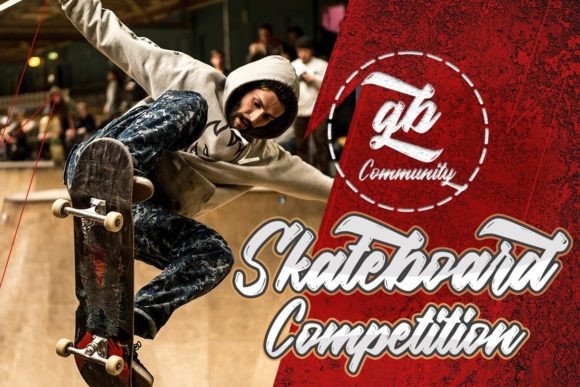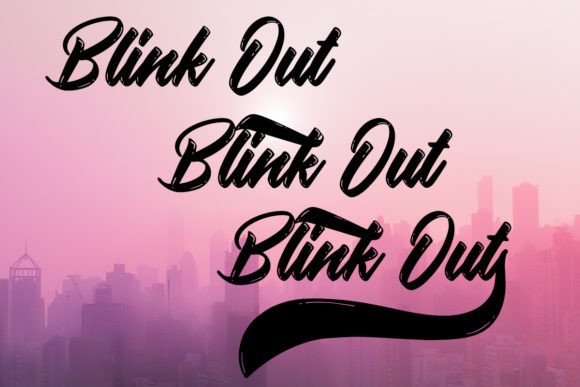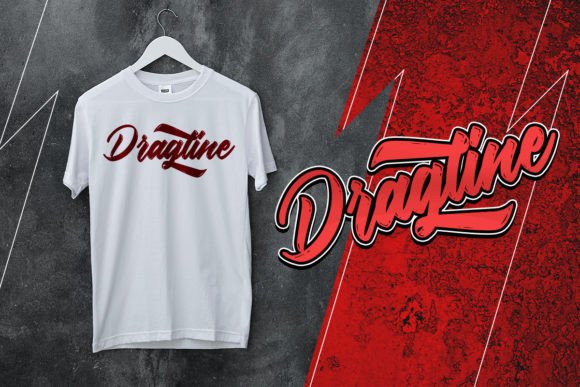
About Thirteen Font
“Thirteen” is a retro and cool handwritten font that brings a nostalgic and stylish vibe to your designs. Versatile and visually appealing, this font is well-suited for a variety of design purposes, making it a great choice for web design, logos, brochures, business cards, online stores, t-shirt designs, mockups, invitation cards, wedding cards, flyers, and posters.
The retro aesthetic of “Thirteen” adds a unique and cool touch to your projects, evoking a sense of nostalgia while maintaining a contemporary appeal. Its handwritten style brings a personalized and authentic feel to your designs, making it suitable for a wide range of creative applications.
The PUA encoding of “Thirteen” is a noteworthy feature, providing easy access to a variety of glyphs and swashes. This feature enhances your creative freedom, allowing you to customize and personalize your designs effortlessly. “Thirteen” becomes a user-friendly tool that empowers you to create distinctive and visually engaging compositions.
Imagine the impact of “Thirteen” on your design projects—it becomes more than just a font; it becomes a key element that infuses a retro and cool vibe into your visual creations. Whether you’re designing for print or digital platforms, let the stylish handwritten charm of “Thirteen” be the retro touch that sets your designs apart.
Incorporate “Thirteen” into your design toolkit and explore the endless possibilities it offers. Whether you’re working on branding materials or promotional items, let this font be the cool and retro handwritten element that adds character and authenticity to your designs.